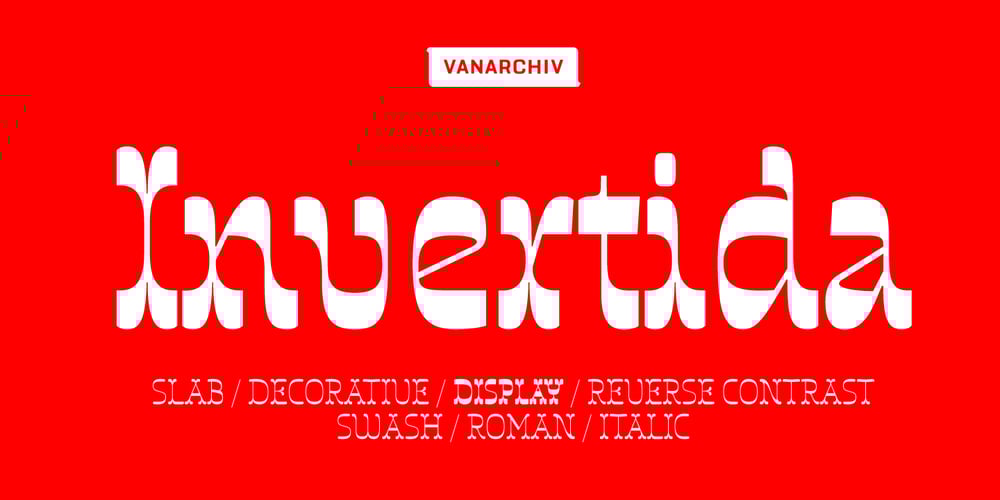
Invertida Font Family was designed by Ricardo Santos and published by Vanarchiv. Invertida contains 6 styles and family package options. This display decorative slab-serif typeface, contain reverse contrast which remind the old western style, there are also stencil version available (Invertida St). Invertida font family contain Latin and Cyrillic encoding characters and italic versions are also available too. Open type features can provide more options (stylistic alternates, ligatures, swash, figures).